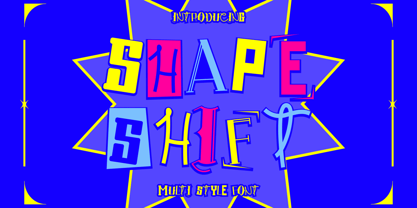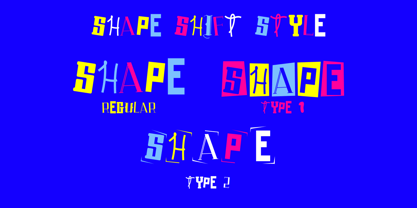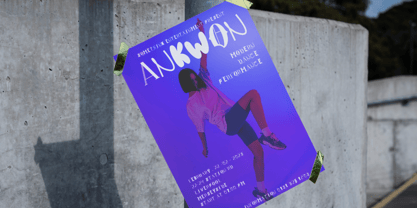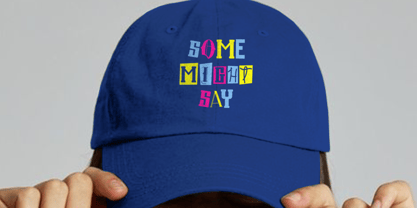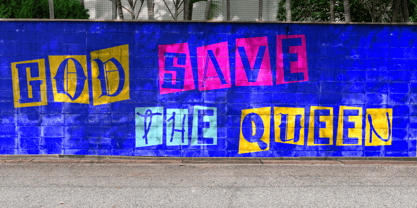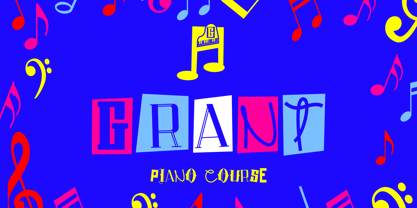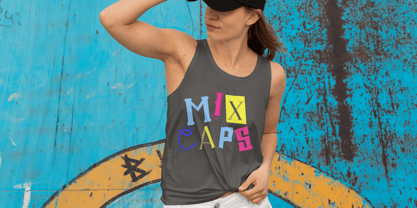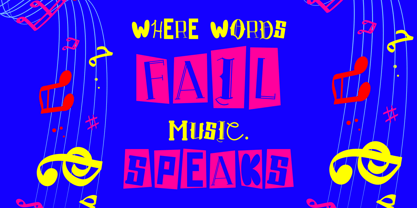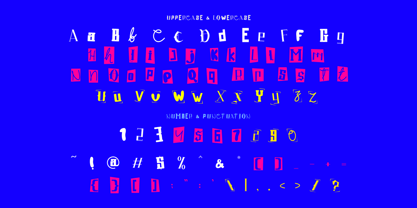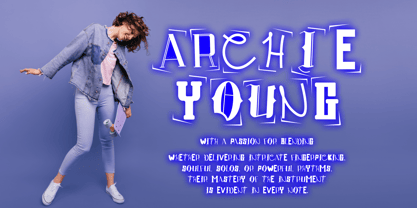
Shape Shift
by Shanaf
The Shape Shift Font Family was designed by Yesie Erma Yunita and published by Shanaf. Shape Shift contains 3 styles and family package options. More about this family
Shape Shift is a highly dynamic display font designed with an eclectic mix of letterforms that redefine visual storytelling. Each character showcases a distinct personality—crafted in varying shapes, widths, and styles—to give your typography a ransom-note aesthetic with a refined twist. With bold serifs, handwritten quirks, slab forms, and calligraphic nuances, the font composition evokes an energetic vibe suitable for modern urban themes. The letters are playfully rotated, stretched, or boxed within colorful shapes, giving off a cut-and-paste collage feel reminiscent of DIY zines or music flyers.
This multistyle font is ideal for creators looking to break away from uniformity. Whether you're crafting a music poster, album cover, movie title, event branding, or packaging, Shape Shift makes your words shout with vibrance and rhythm. The font supports various alternates and types (Regular, Type 1, and Type 2), giving you flexibility in tone and visual structure. With its modular design and creative irregularity, Shape Shift is more than a typeface—it’s an expressive design toolkit in itself.